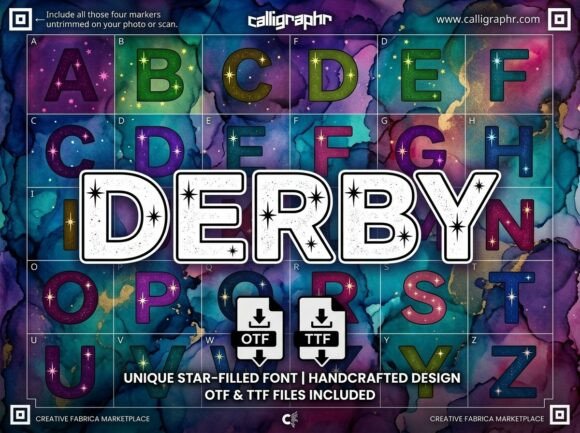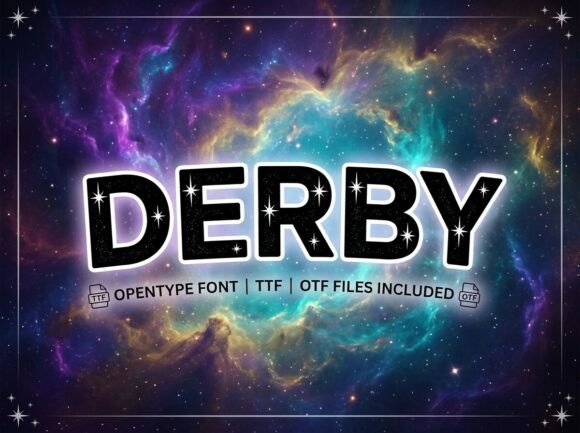
Introducing the Derby Font: A Stunning Decorative Display Font
Are you tired of using the same old fonts for your designs? Look no further than the Derby Font, a unique and artistic display font that’s sure to turn heads. This font is designed to be the center of attention, featuring bold and eye-catching elements that will elevate your designs to the next level.
What Makes the Derby Font Special?
The Derby Font is a decorative display font that’s perfect for creators who want to break away from the ordinary. Its strong visual personality and unique artistic elements make it ideal for bold headlines, artistic logos, and creative packaging. Whether you’re a designer, craftsperson, or DIY enthusiast, this font is sure to inspire your creativity.
Key Features of the Derby Font
- Unique Artistic Elements: The Derby Font features one-of-a-kind artistic elements that will add a touch of elegance and sophistication to your designs.
- Strong Visual Personality: This font has a bold and eye-catching personality that’s sure to grab attention.
- Versatile: The Derby Font is perfect for a variety of design applications, including bold headlines, artistic logos, and creative packaging.
- Professional and Polished Finish: Despite its bold and artistic nature, the Derby Font maintains a professional and polished finish that’s suitable for even the most high-end designs.
IMPORTANT NOTE BEFORE PURCHASE: The Derby Font is an ALL-CAPS (Uppercase Only) display typeface. It does not include lowercase letters. It is specifically designed for high-impact headlines, logos, and decorative initials where every letter is a work of art.
Why Choose the Derby Font?
There are many reasons why the Derby Font is a great choice for designers and crafters. Here are just a few:
- Stand Out from the Crowd: With the Derby Font, you can create designs that stand out from the crowd and grab attention.
- Elegant and Sophisticated: This font adds a touch of elegance and sophistication to any design, making it perfect for high-end projects.
- Versatile: The Derby Font can be used for a wide range of design applications, from bold headlines to artistic logos and creative packaging.
Tips for Using the Derby Font
Here are a few tips for getting the most out of the Derby Font:
- Use it for Headlines: The Derby Font is perfect for bold headlines and titles, where its unique artistic elements can really shine.
- Experiment with Colors: Try pairing the Derby Font with different colors and textures to create unique and eye-catching designs.
- Mix and Match: Don’t be afraid to mix and match the Derby Font with other fonts to create interesting and dynamic designs.
The Derby Font is a stunning decorative display font that’s perfect for designers and crafters who want to add a touch of elegance and sophistication to their designs. With its unique artistic elements, strong visual personality, and versatility, this font is sure to inspire your creativity and help you create designs that stand out from the crowd.